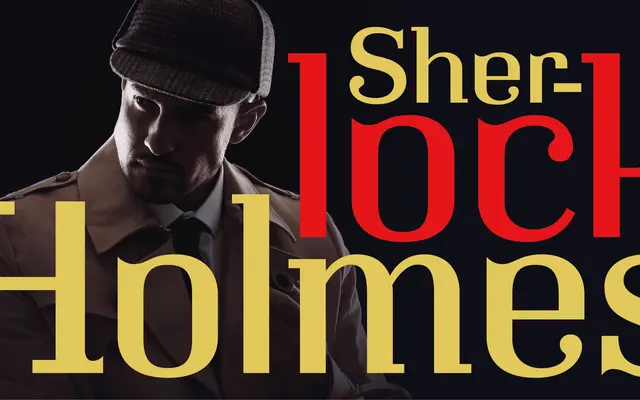
Firdevs
Kerns & Cairns · Fevzi Yazıcı, Dyana Weissman · 2023
A single-weight serif drawn entirely by hand in a Turkish prison cell by award-winning visual journalist Fevzi Yazıcı, then digitised by Dyana Weissman.
Conceived by Yazıcı during his imprisonment at Silivri with only pencil and paper, the typeface realises a long-held ambition to design letterforms from scratch. Named after his wife, it combines elegance with legibility across display and text sizes, and has been used in exhibition posters and catalogues. All profits from the font go to the Yazıcı family.
Firdevs shows elegant, hand-drawn letterform origins with organic stroke contrast and warmth consistent with humanist serif traditions, suited to both display and text use.